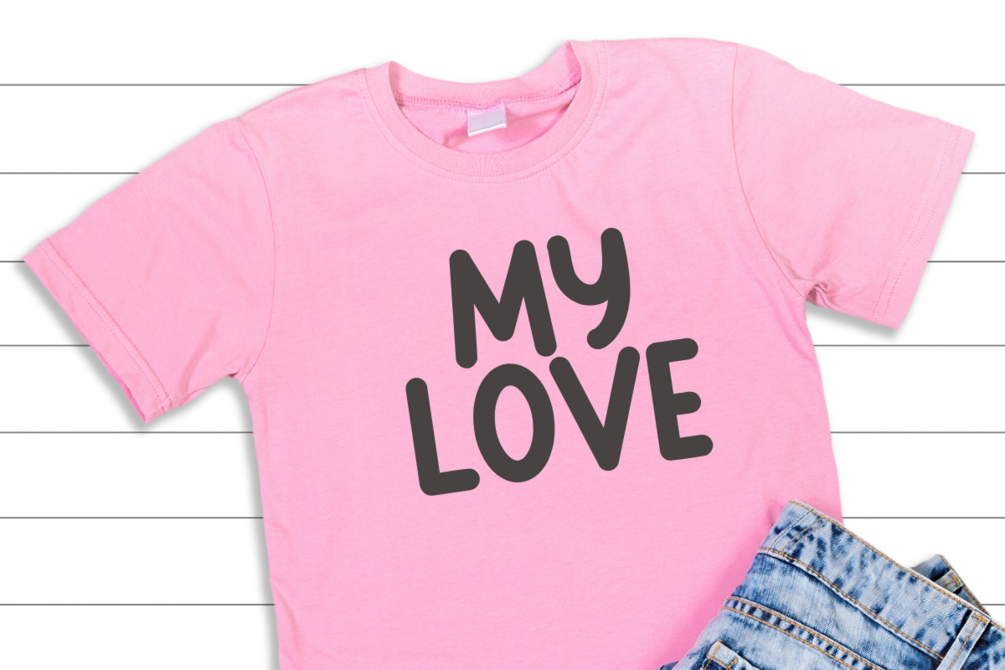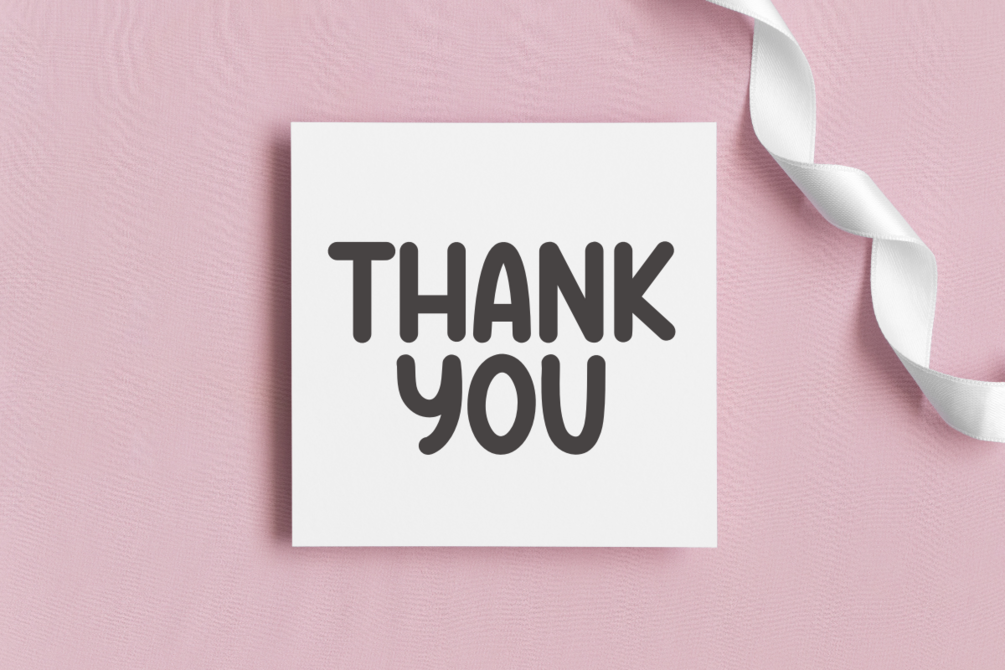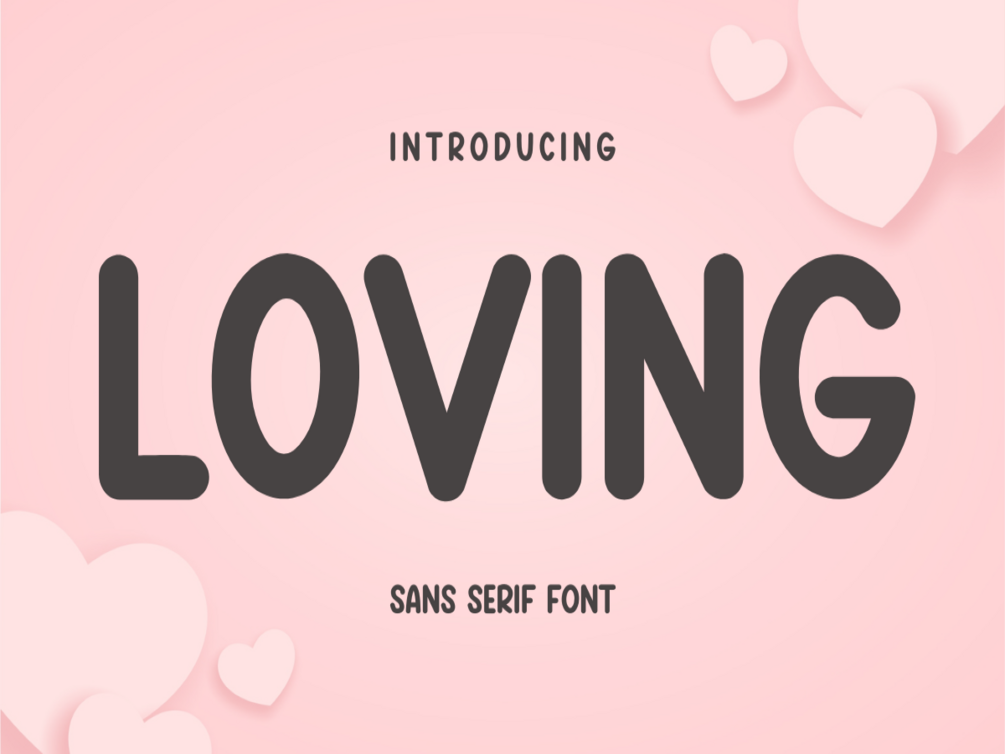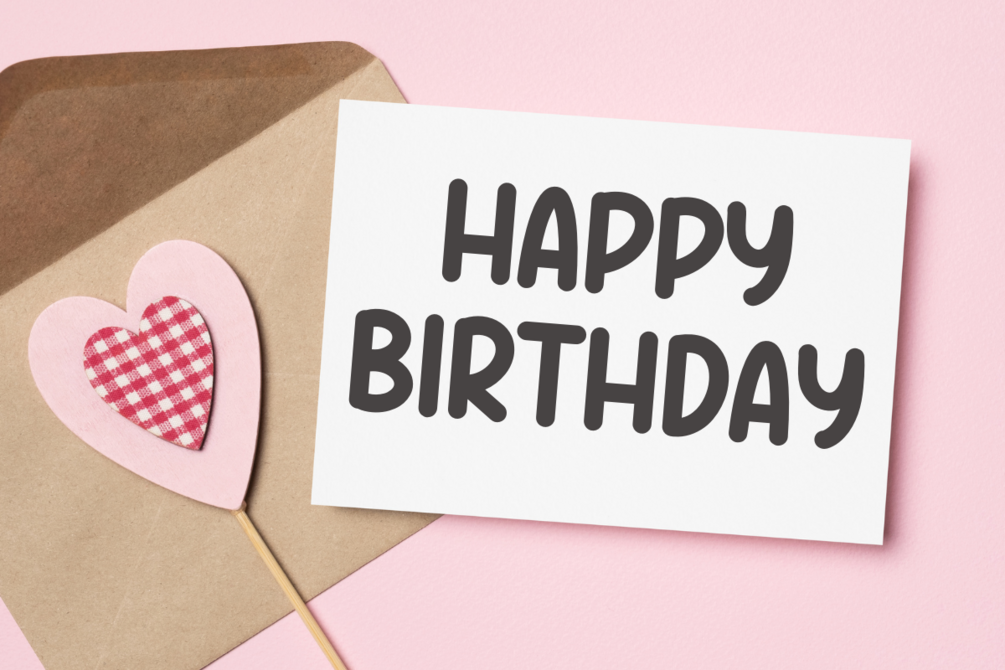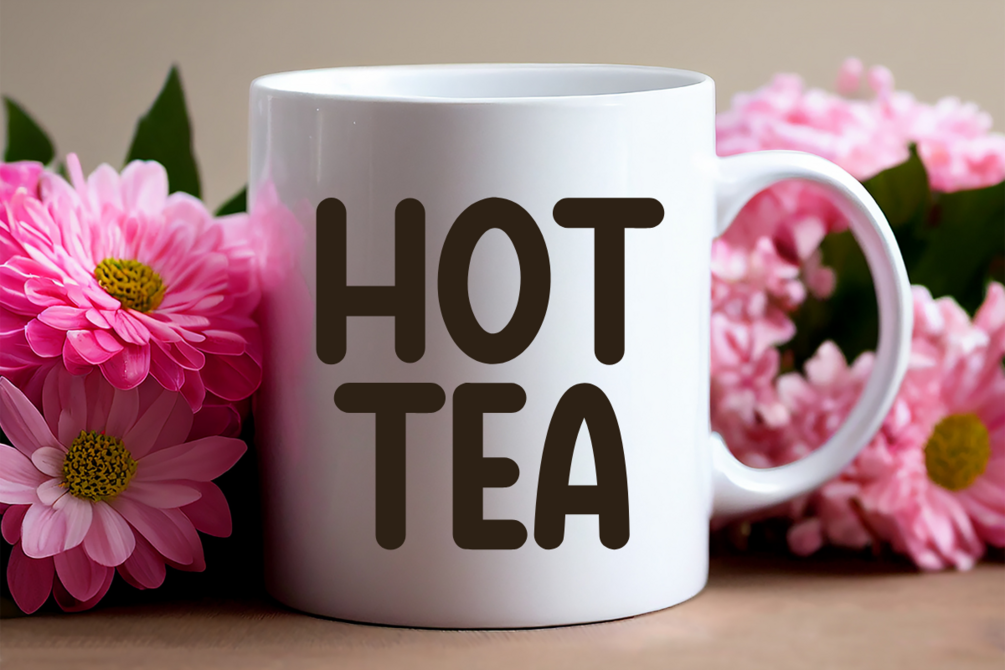
loving - Sans Serif Font
Loving is a cute and neat sans-serif font. Perfect for card designs, crafts, digital designs, presentations, social media designs, digital planners, and many more.